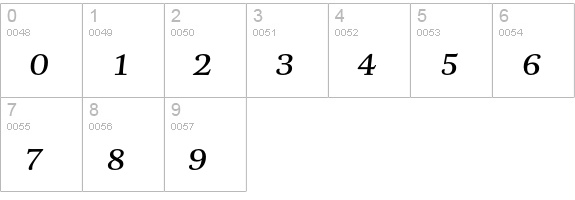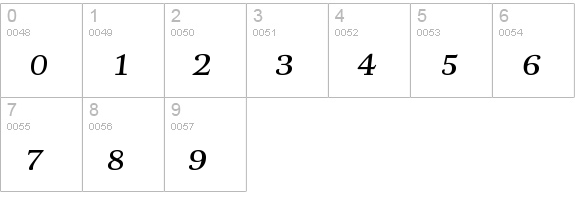
DTLUnicoT-CapsItalic font is a stylish and sophisticated typeface that exudes elegance and modernity. With its sleek design and unique italicized caps, this font is perfect for adding a touch of sophistication to any design project. The sharp lines and smooth curves of this font make it a versatile choice for a wide range of applications, from logos and branding to editorial design and packaging. What sets DTLUnicoT-CapsItalic font apart is not only its aesthetic appeal but also its accessibility. This font is available for free download at FontsMarket.com, making it easy for designers and creatives to access and use in their projects without any cost. Whether you're working on a personal project or a client's design, DTLUnicoT-CapsItalic font is a valuable addition to your font library. Elevate your designs with this elegant and modern typeface today.